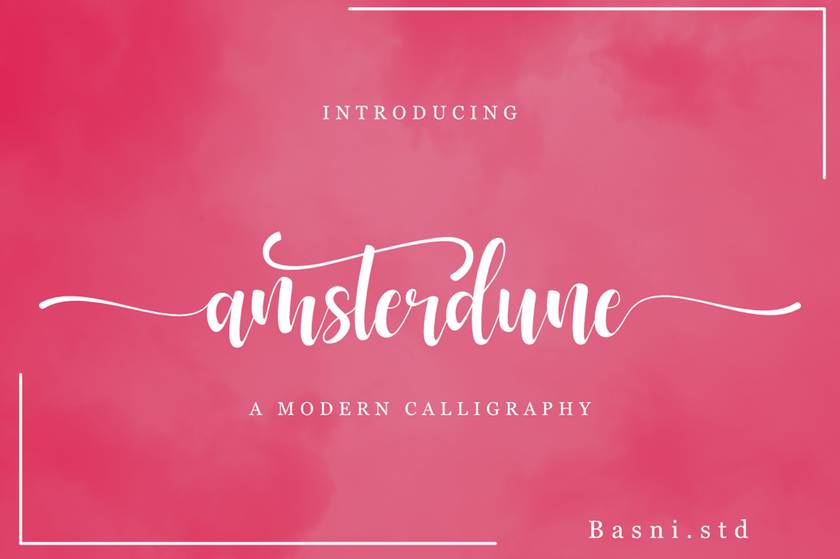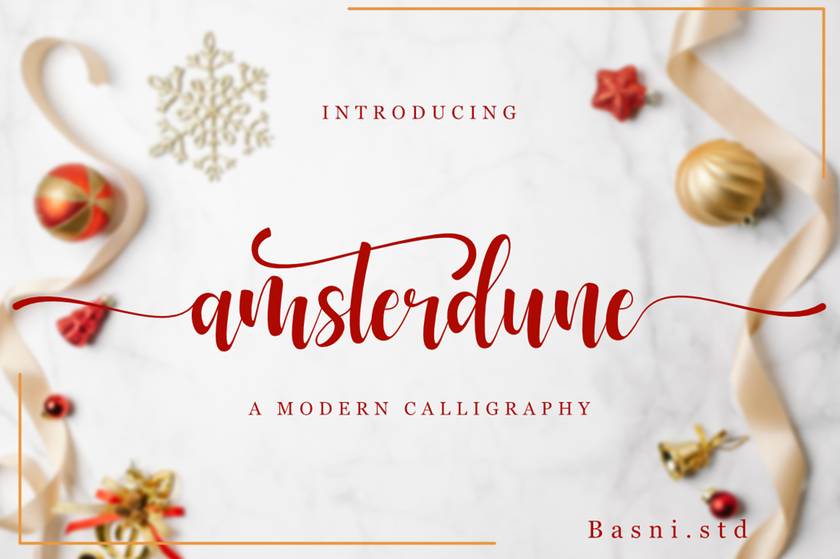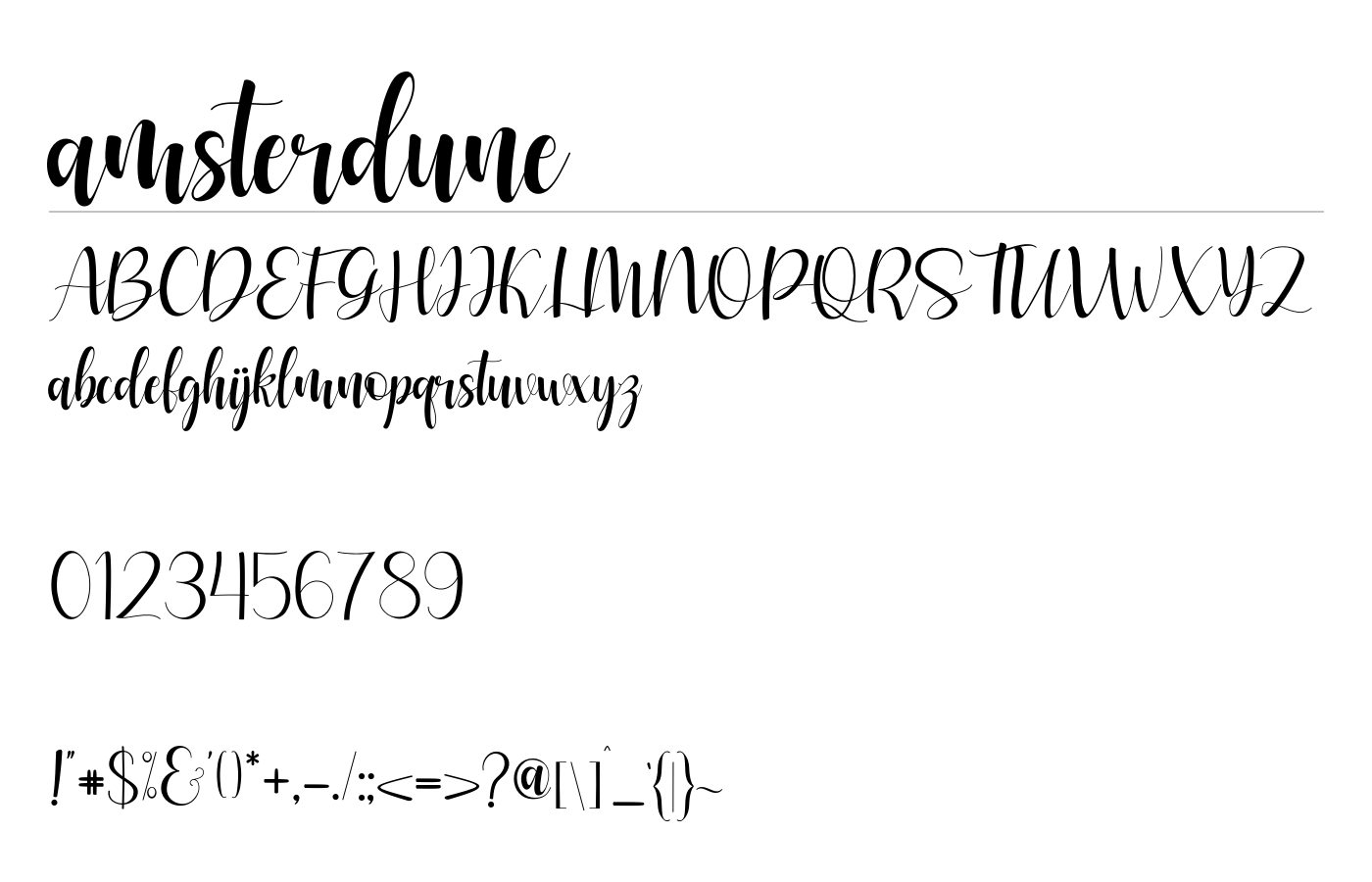
Amsterdune is an elegant script font featuring fluid, brush-like strokes that combine a lively, handwritten feel with refined sophistication. Its medium weight and varied stroke contrast create a dynamic yet graceful appearance, making it perfect for stylish branding, invitations, and headlines that need a personal, artistic touch. This font works best where a warm, creative, and contemporary vibe is wanted, especially in fashion, lifestyle, and luxury-inspired designs.
Amsterdune Font
About Amsterdune Font